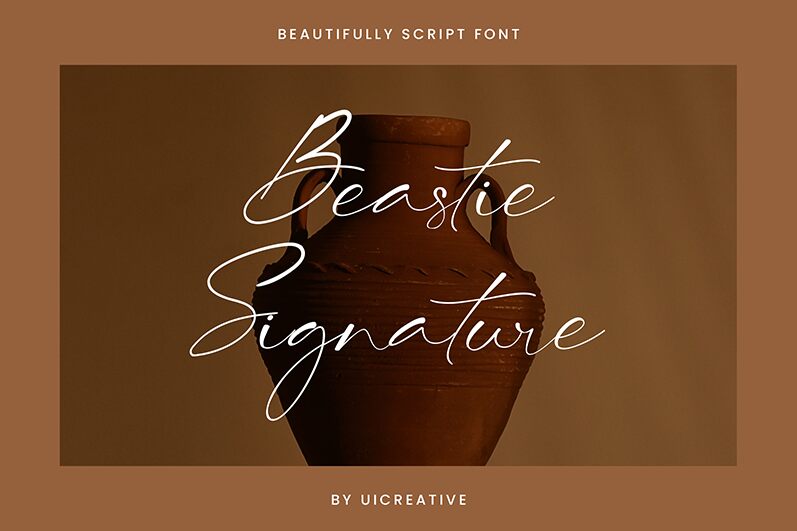
BeastieSignature
Beastie Signature font by UI Creative is an elegant handwritten font with a refined aesthetic. This contemporary script reflects a beautiful fluid design that will compliment your creative work and play its part in sending the right message. Any writing text using this typeface will be expressive, sophisticated, and eye-catchy for the viewer.
The best applications where Beastie Signature can be applied are logos, cards, invitations, advertisements, headlines and titles, website headers and footers, magazines and newspapers homepages covers. Other setups where this free font will shine include product labeling or branding projects among others.